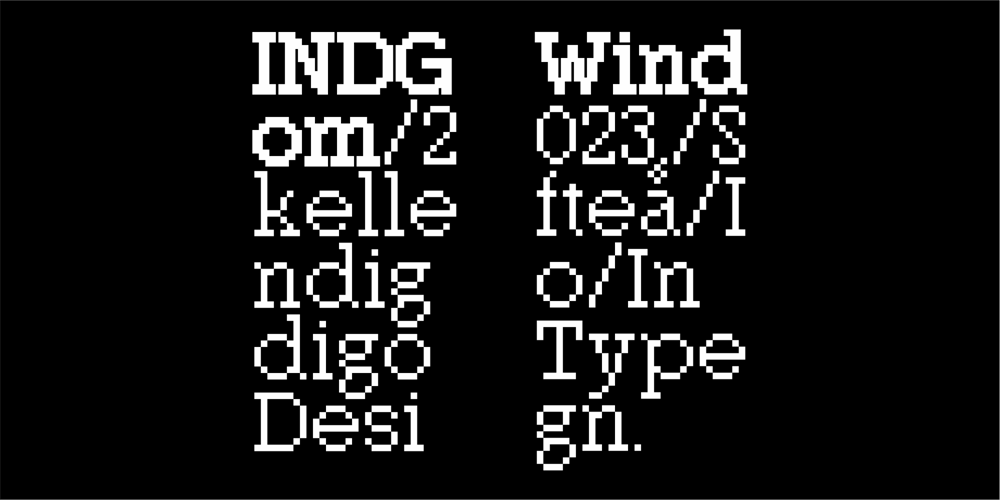
INDG Windom Font Family was designed by Iñigo Uriarte and published by Iñigo Uriarte. INDG Windom contains 1 styles and family package options. “We are all love’s fools, more or less”A design exploration for the ultimate bitmap face, a Times New Roman for an era aspiring to modesty.As expressive as simple, ever legible. Made to convey only truth, its good employment lies in your hands. Arrange armies of thousands of glyphs to form bodies of text, or distort a few words for attention catching geometric titles.Almost 150 languages can now enjoy some of the finest pixel compositions out there. The most exquisites from yours truly, at least.And our brothers of Greece, Ukraine and other nations will never be left overlooked.Poetry in pixels, that is the dream of Windom.